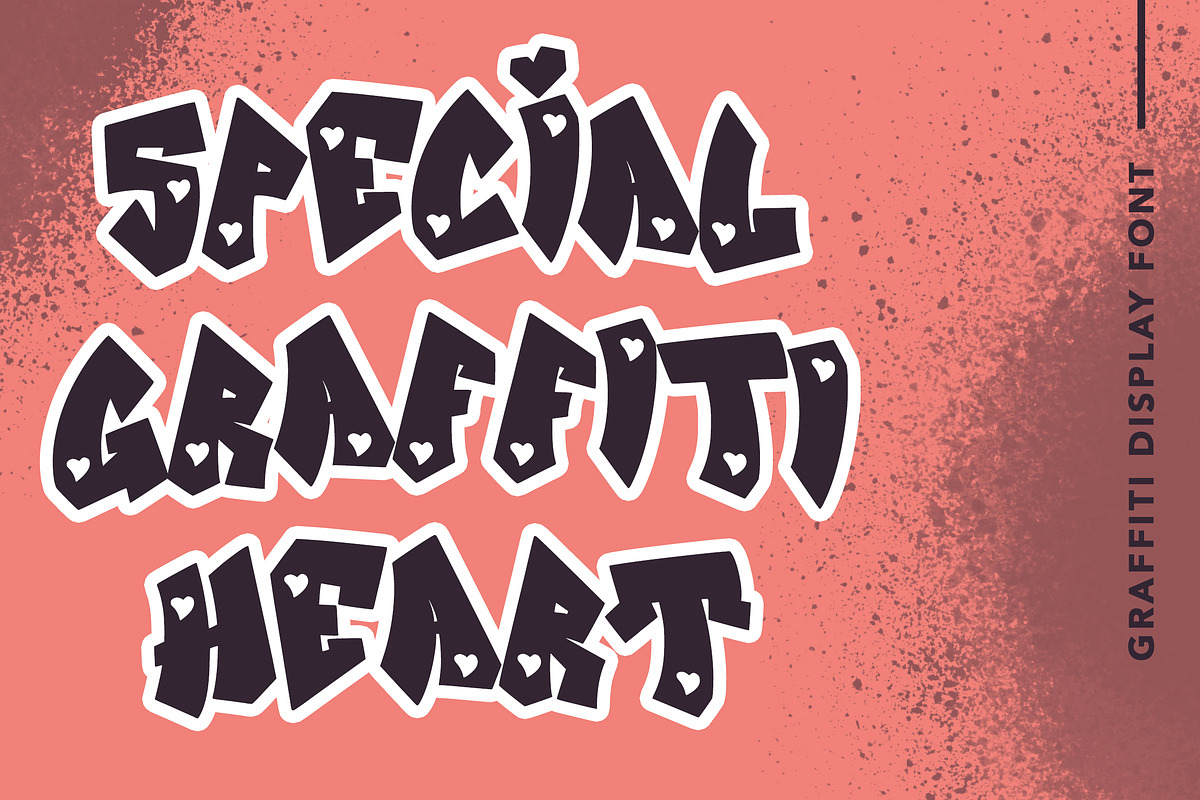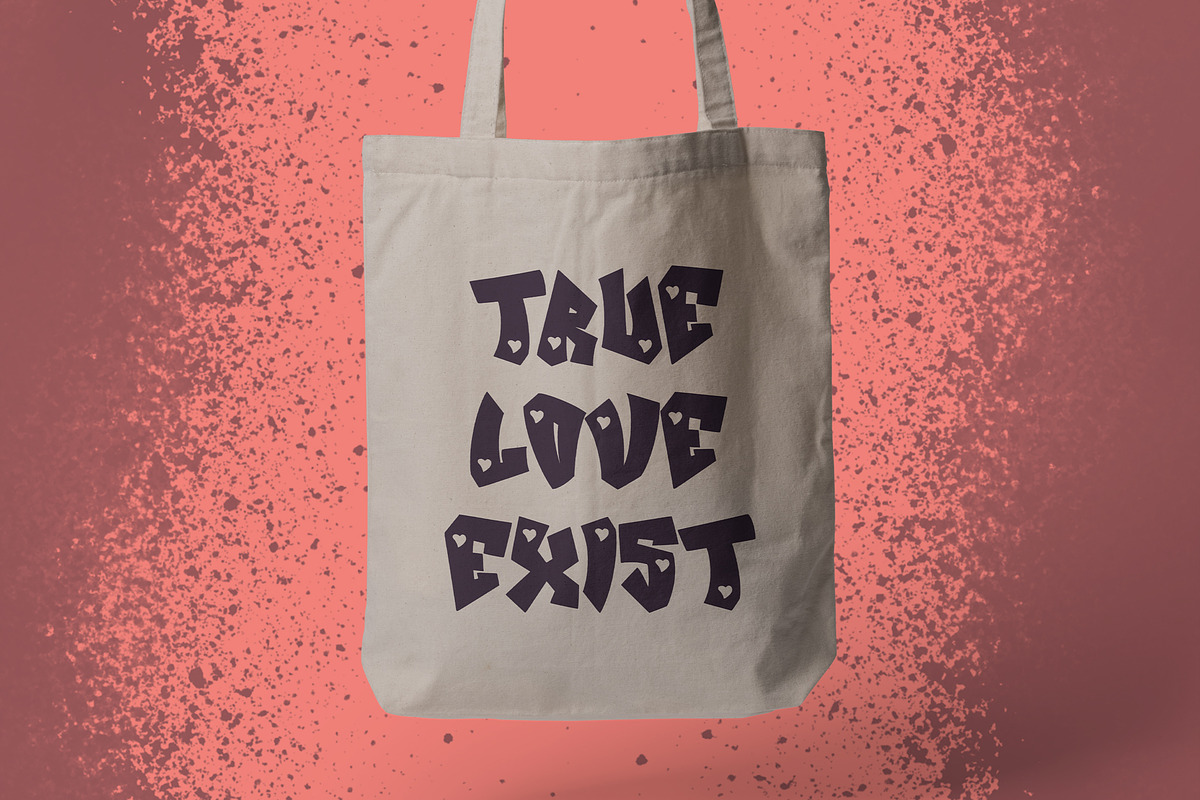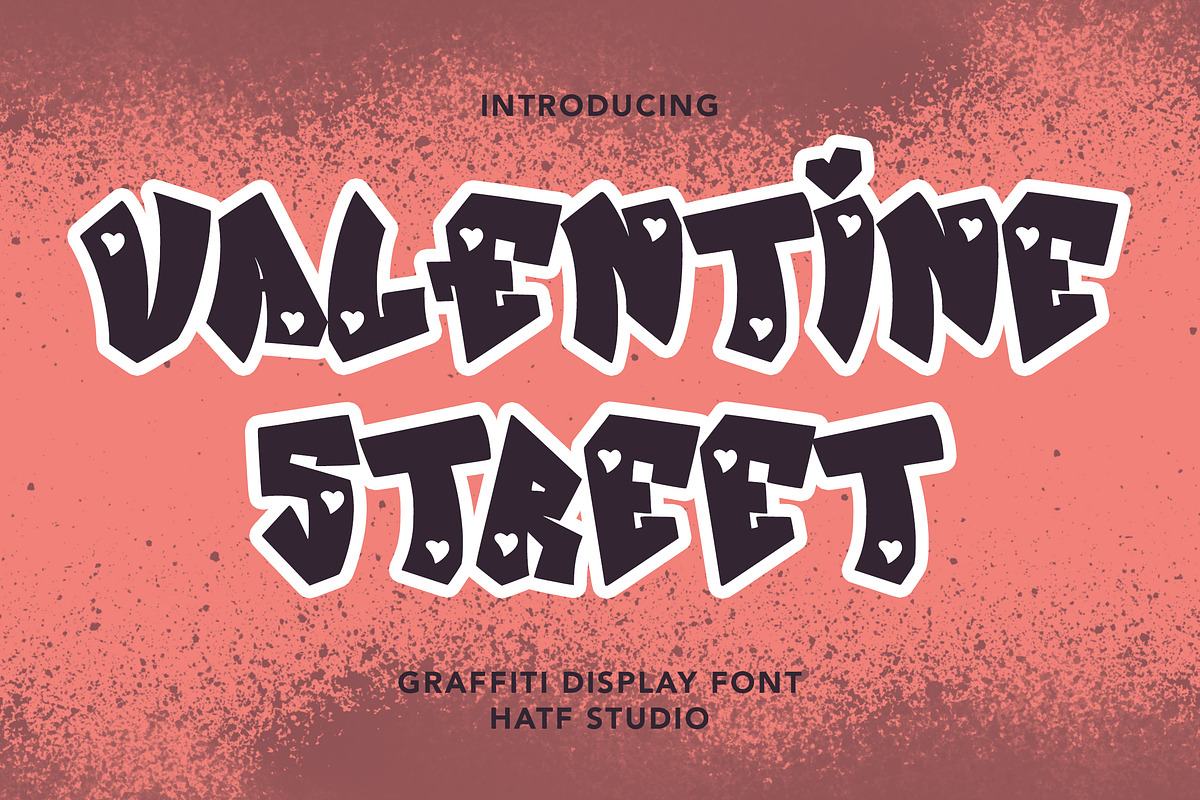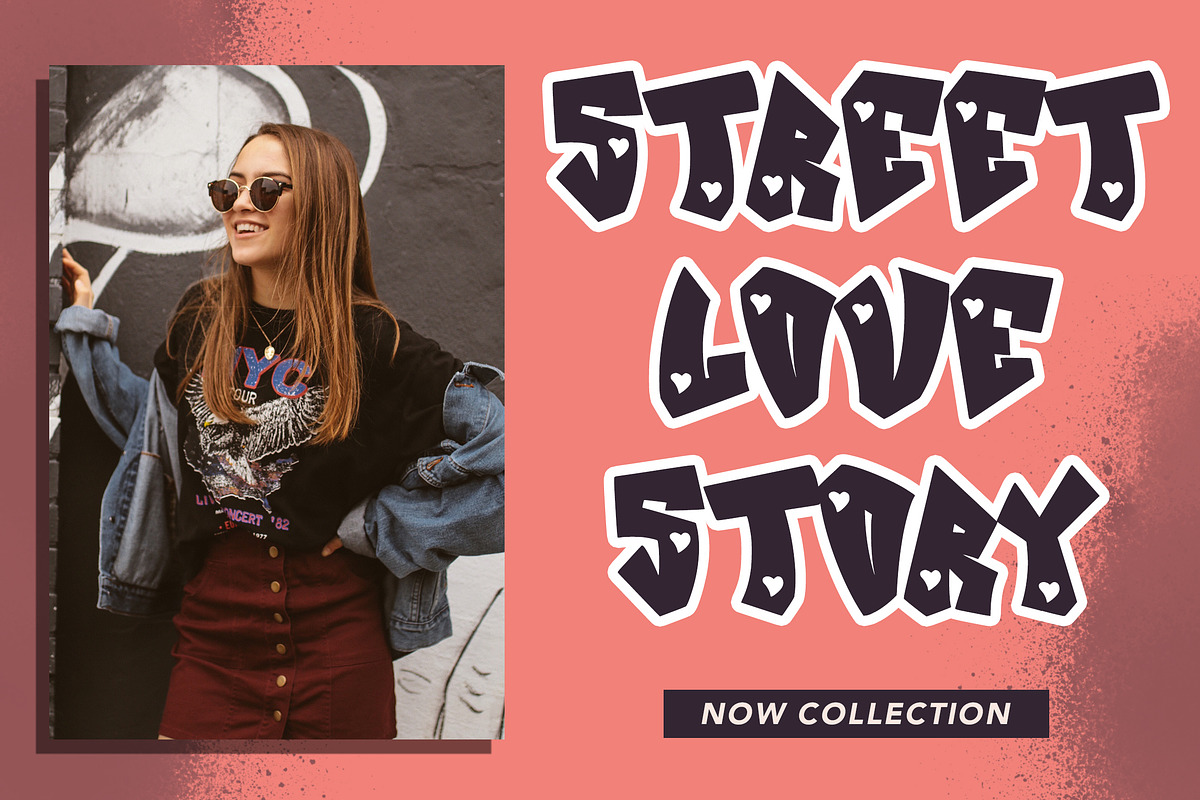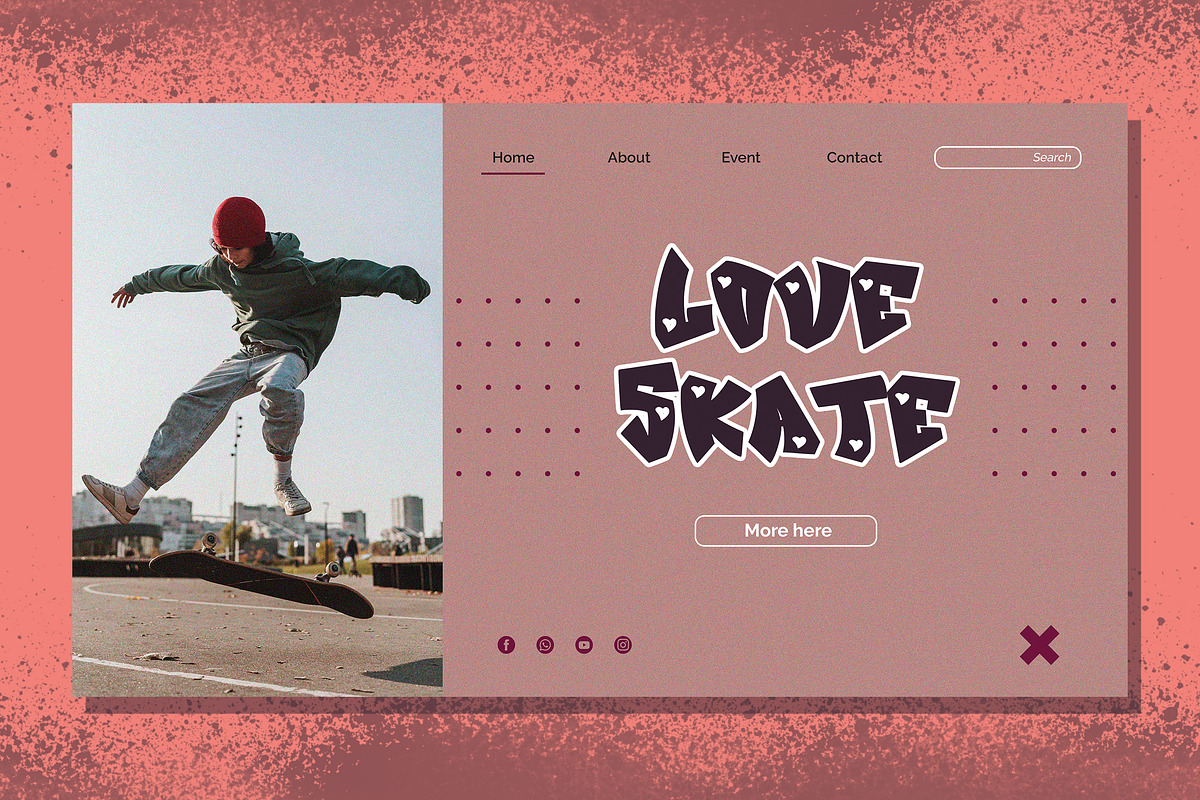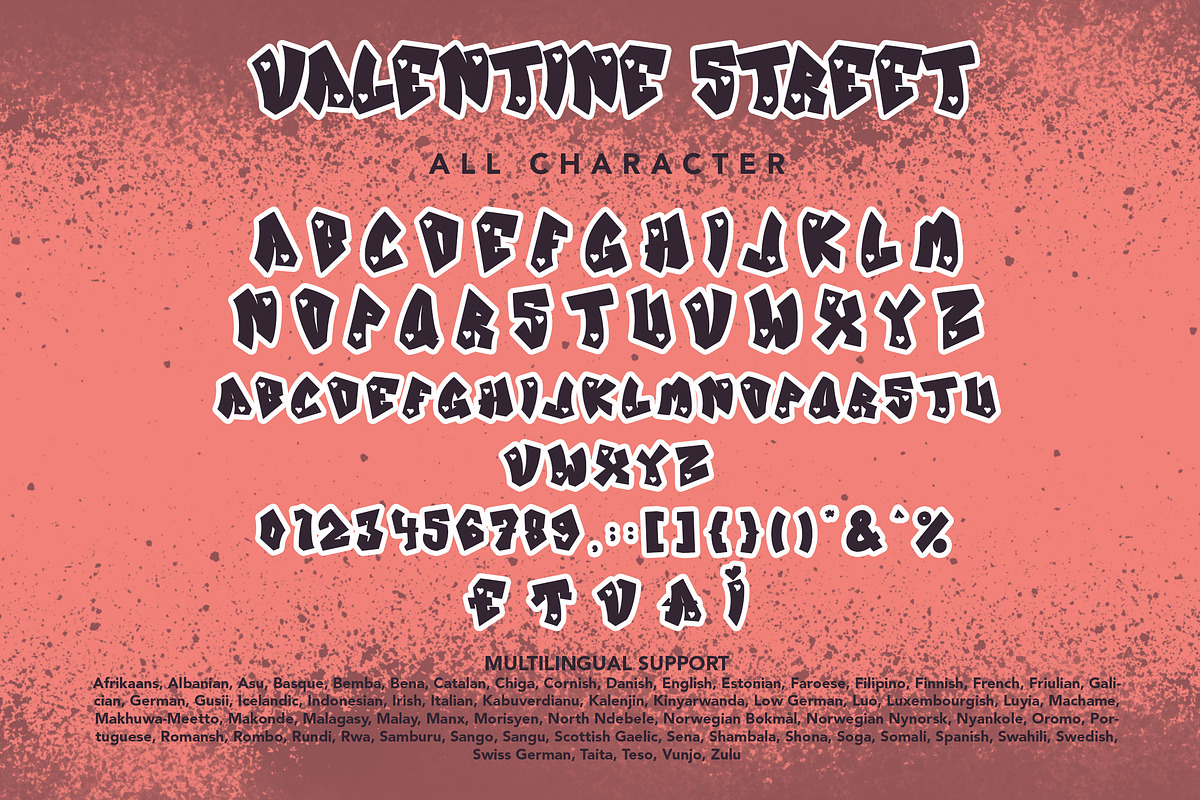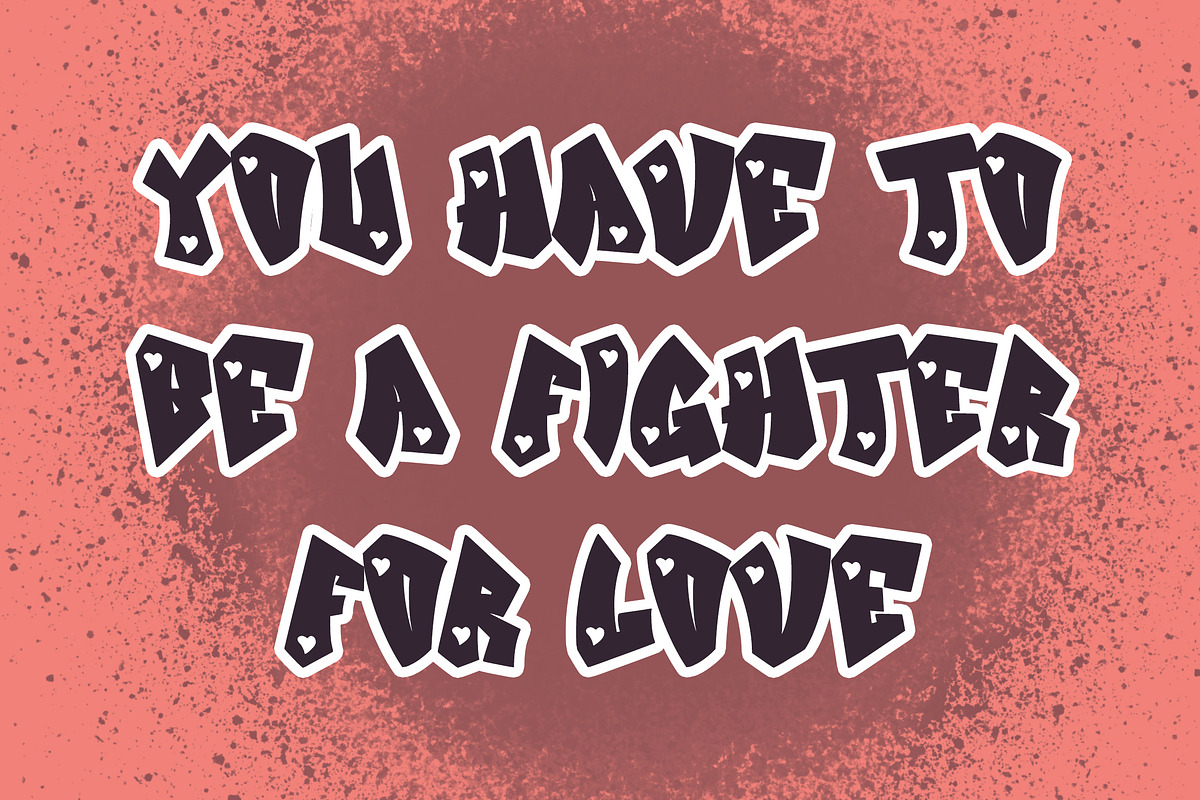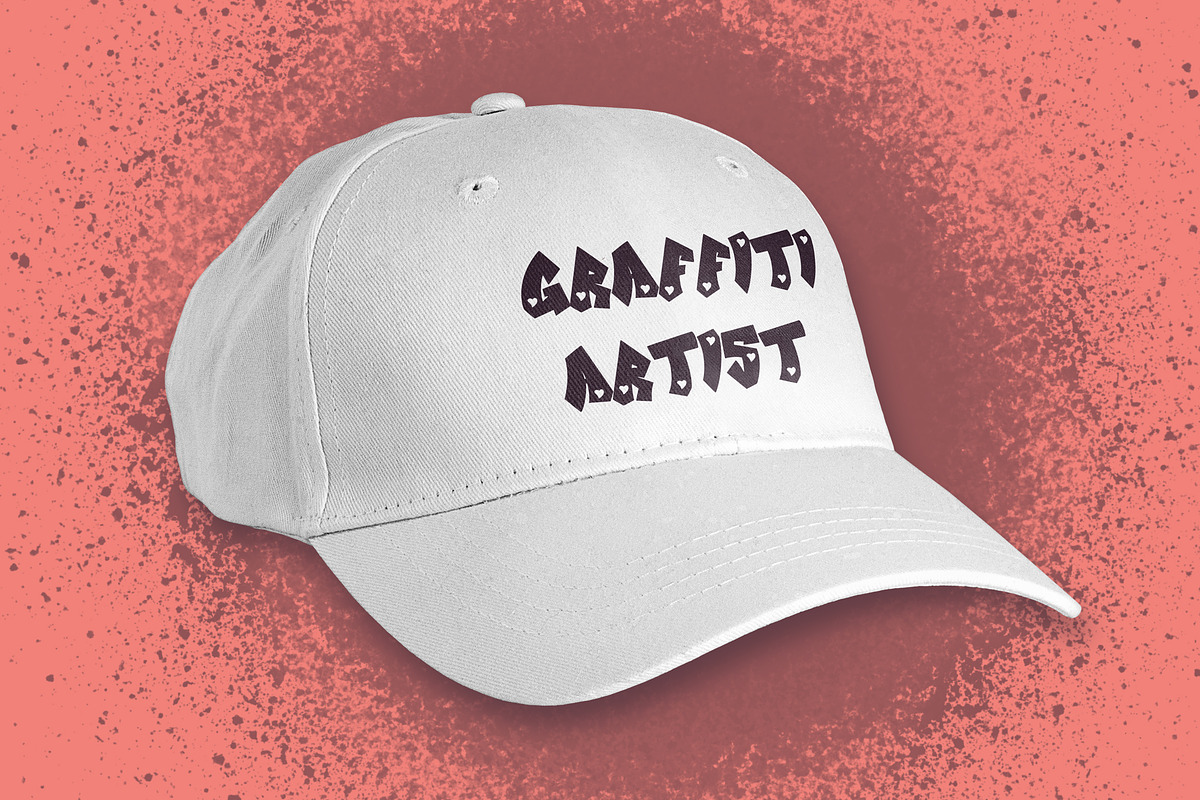
Valentine Street
A graffiti display font with free style font that has the characteristics of street art that shows freedom and is filled with unique characters.